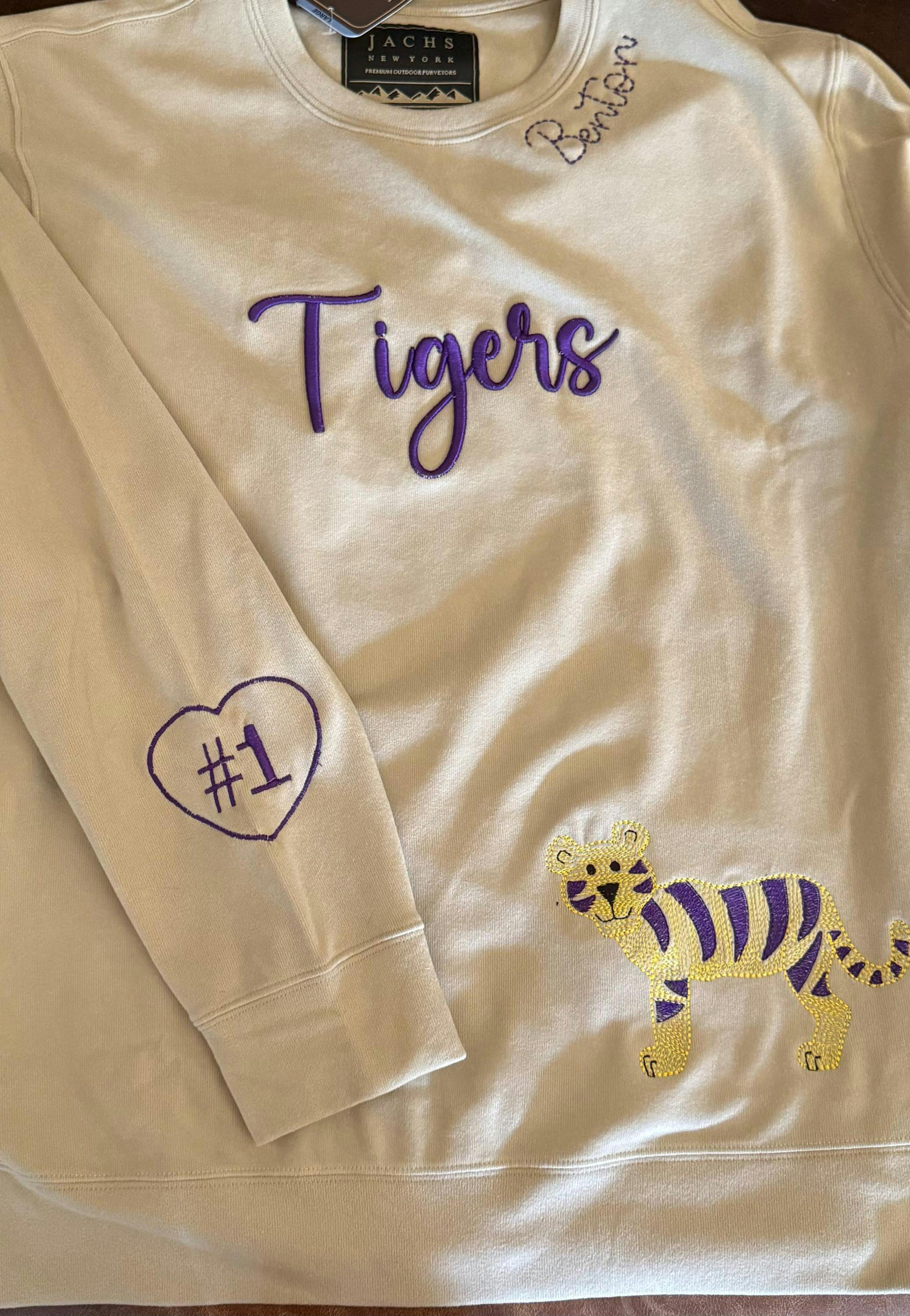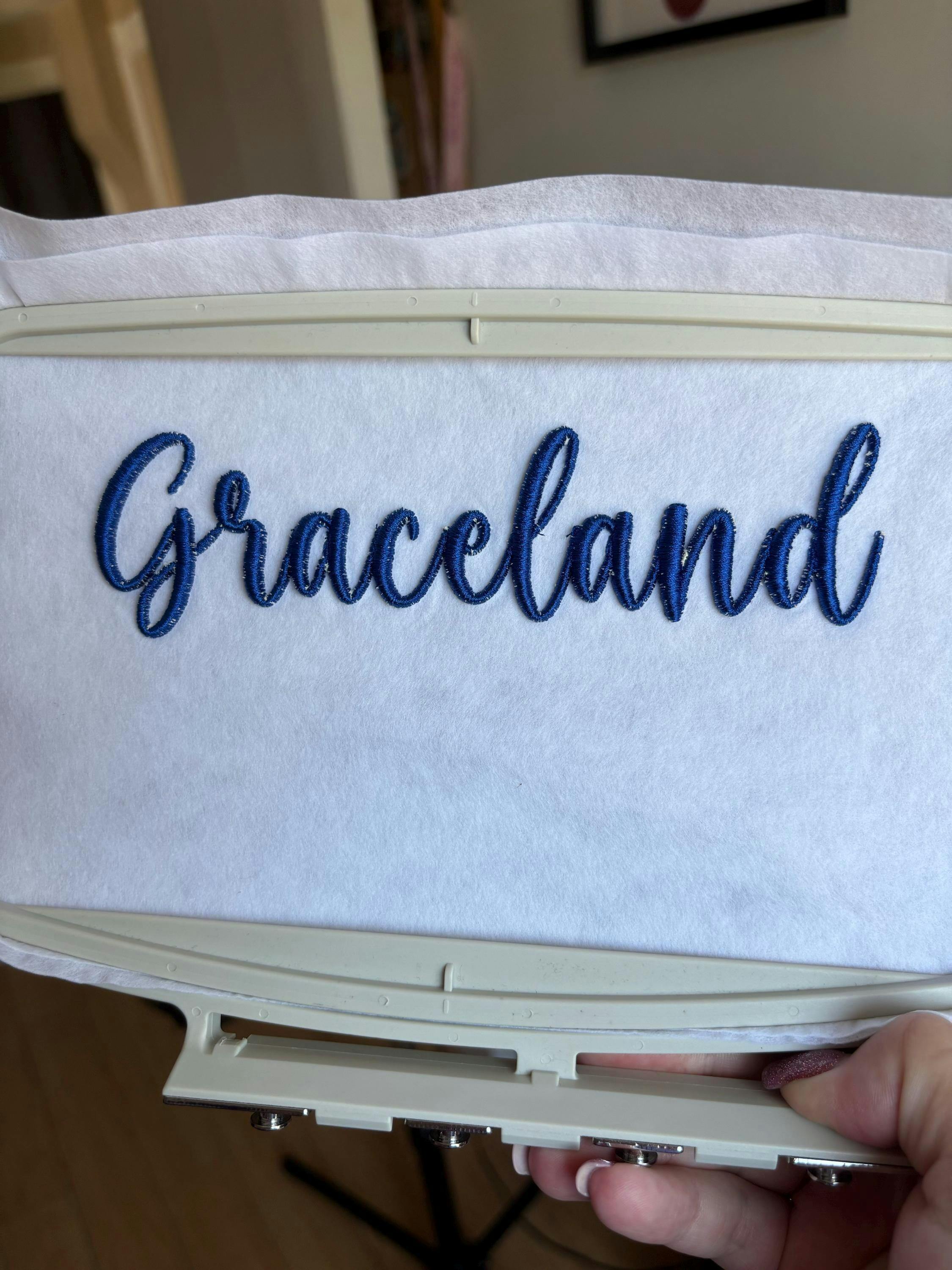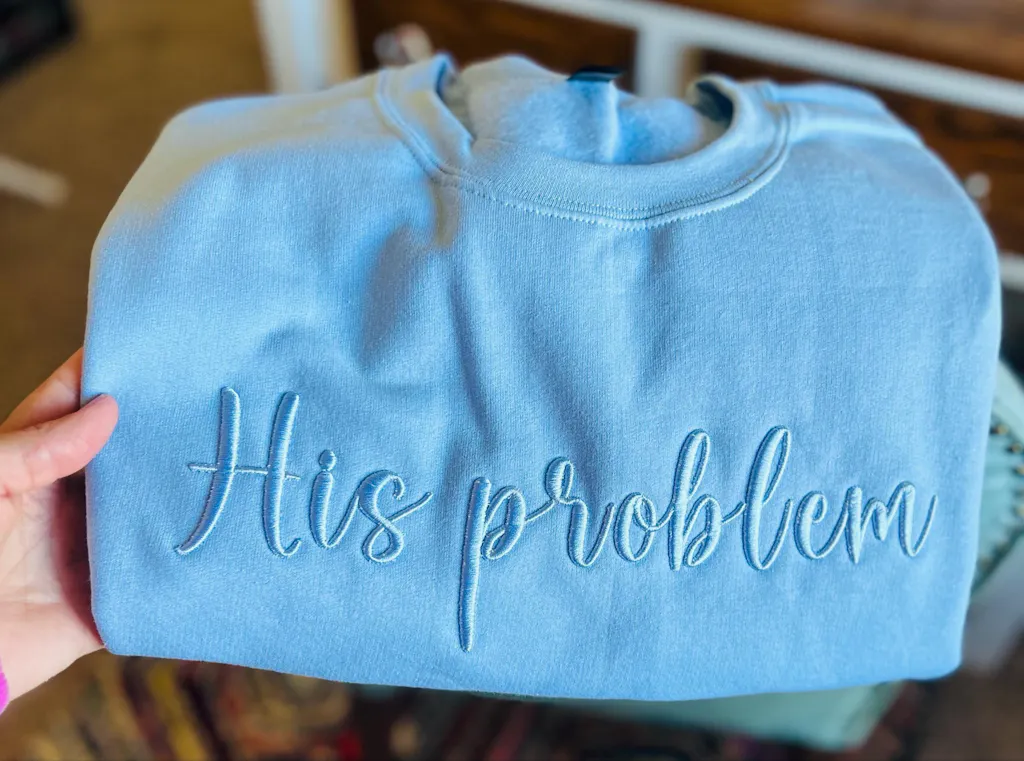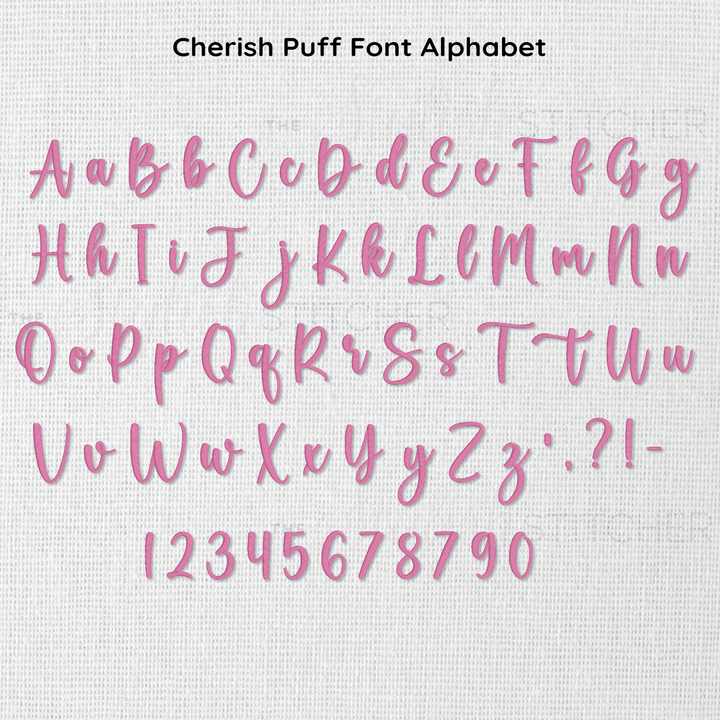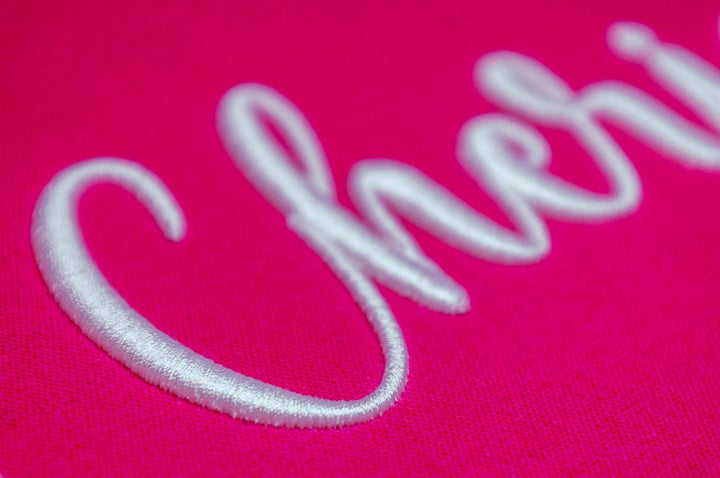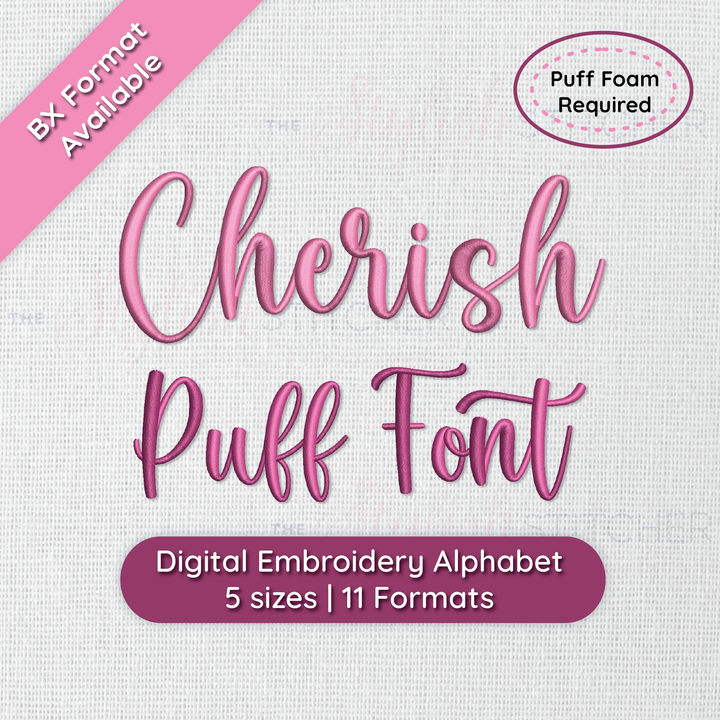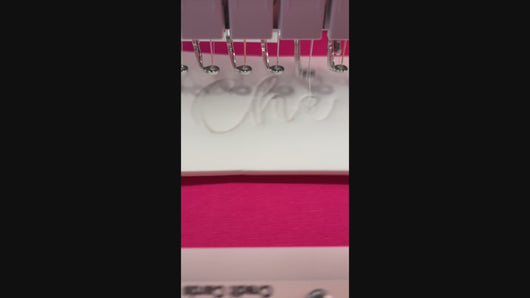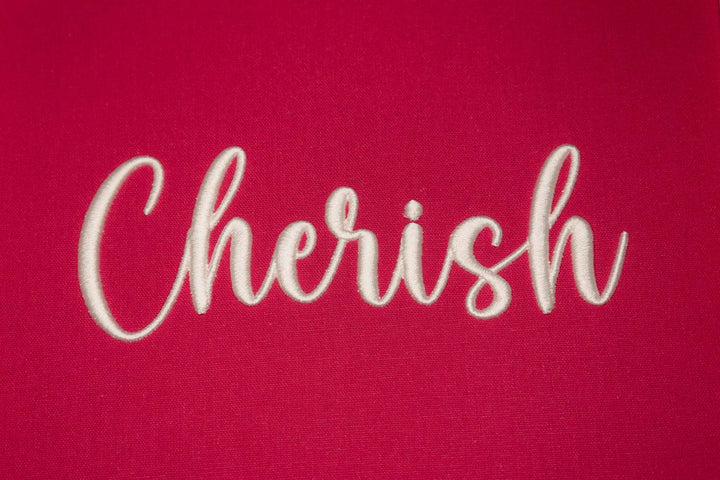
Photograph of stitched out 3D Cherish Puff embroidery font
Video showcasing machine stitching of 3D Cherish Puff font
Photograph of stitched out 3D Cherish Puff embroidery font alphabet
Close up photograph of stitched out 3D Cherish Puff embroidery font
Cherish 3D Puff Digital Embroidery Font
Cherish Puff Font adds an extra layer of love to the design you already adore. Building on the best-selling original, this 3D version brings your favorite script to life with a soft, cushioned effect that invites touch. Perfect for projects that need that special something—whether it’s a heartfelt gift or a cozy home accessory—Cherish Puff Font wraps your words in warmth and depth, making every stitch feel even more personal.